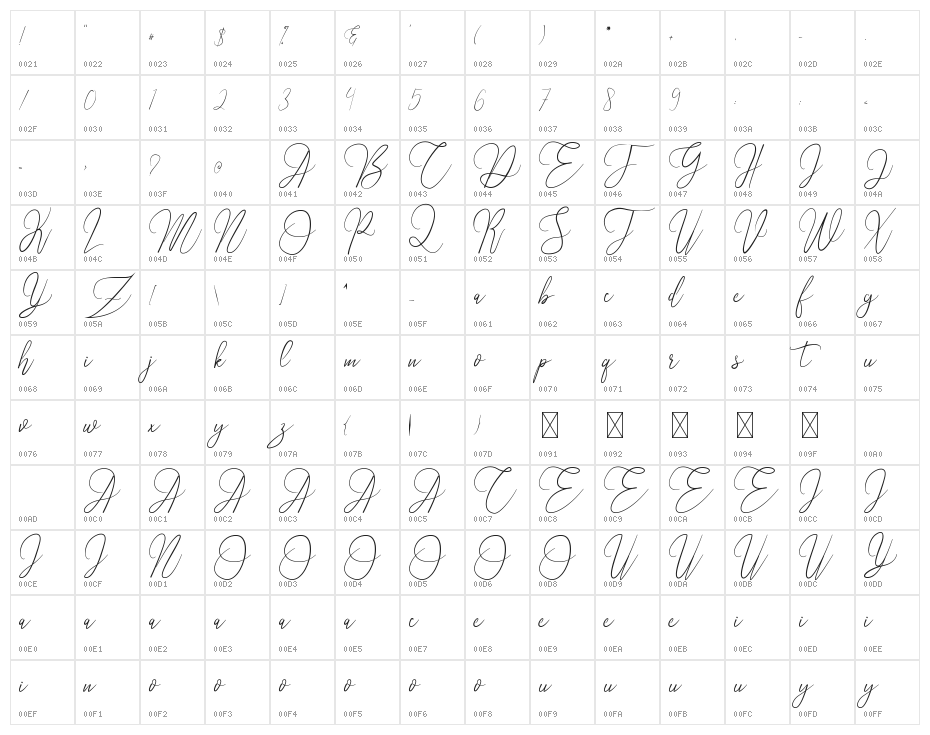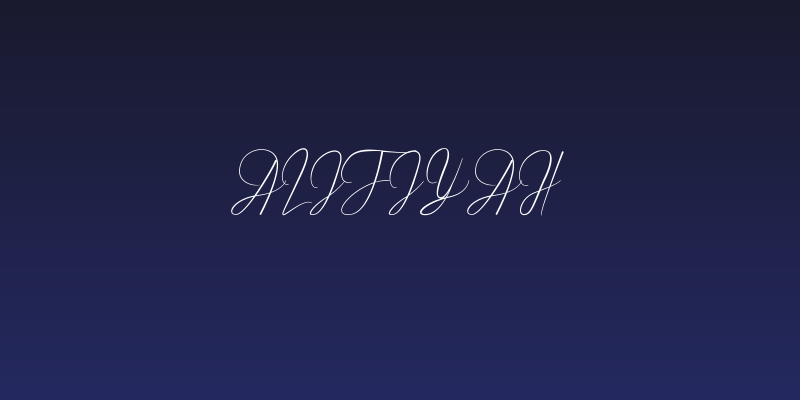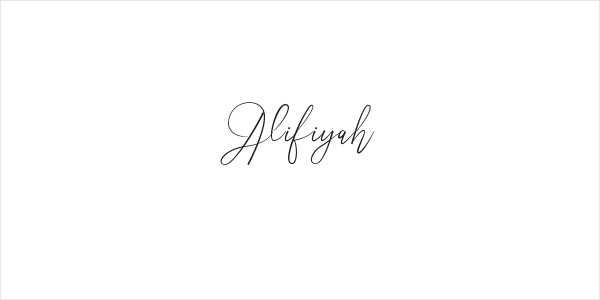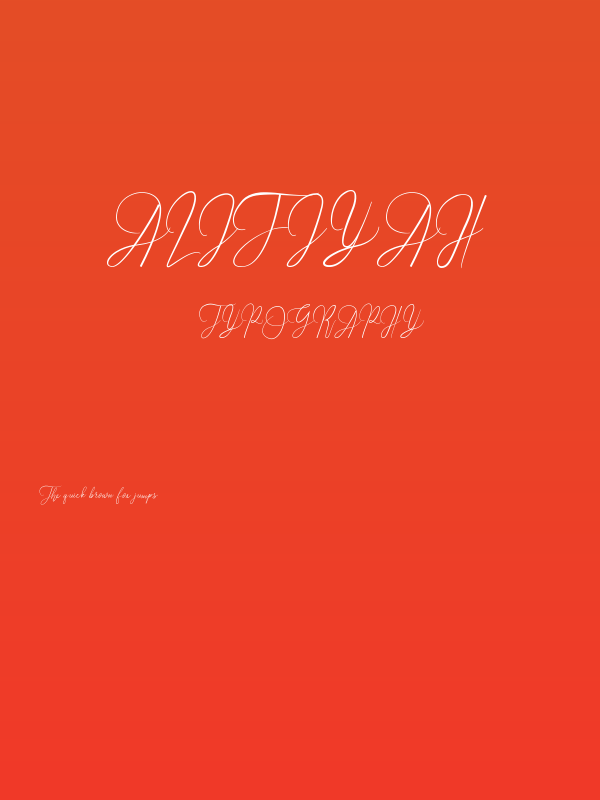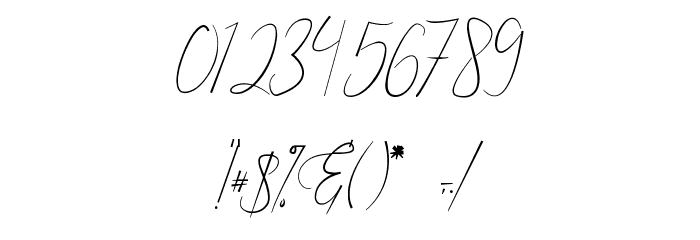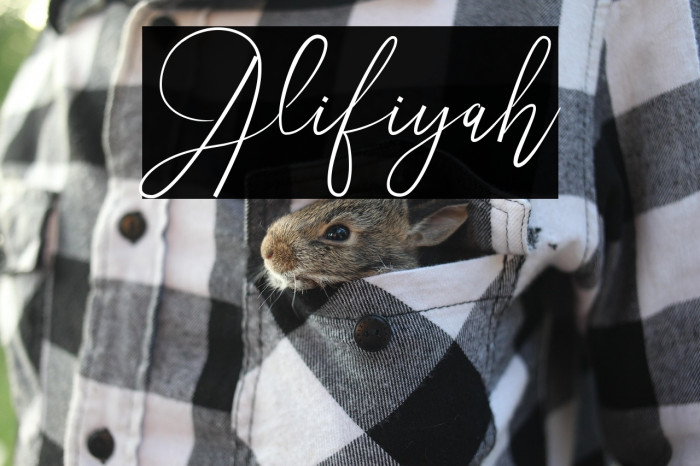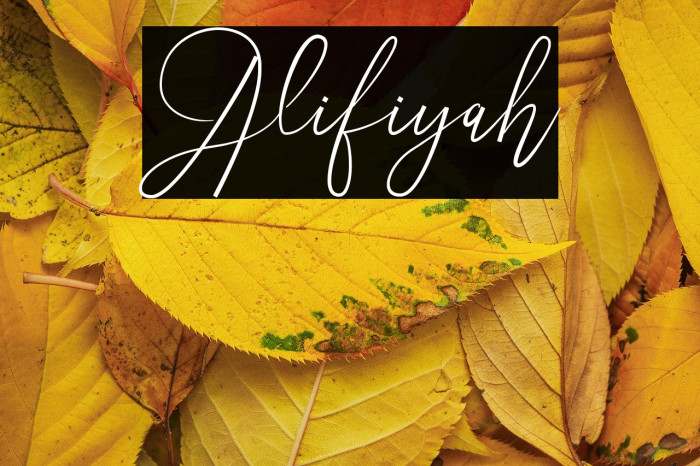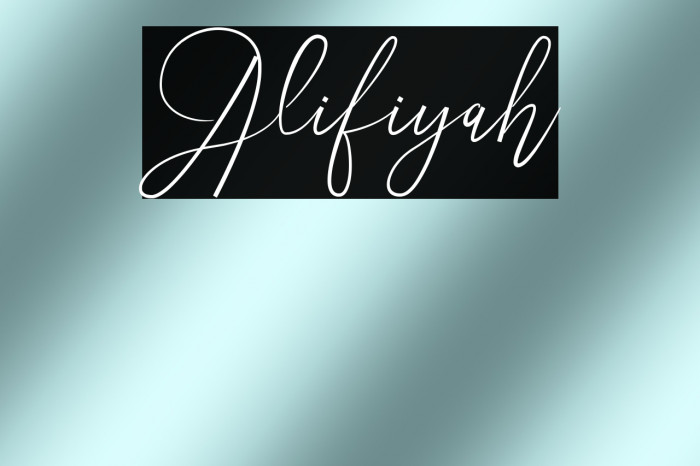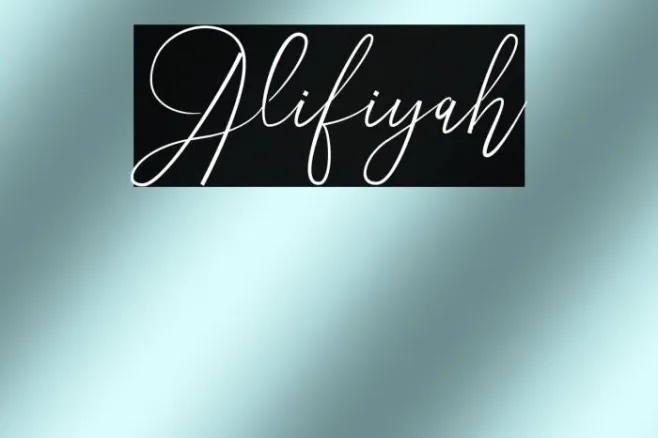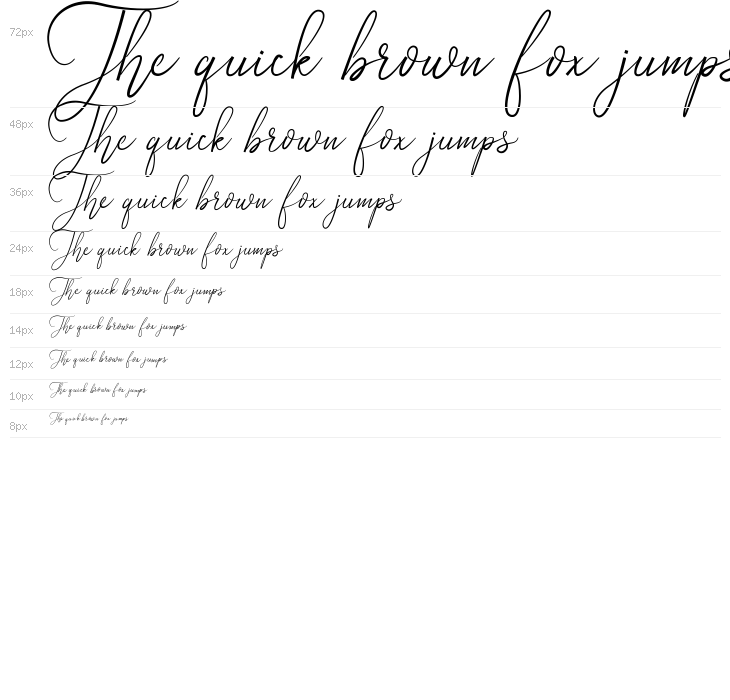
Alifiyah Font
Alifiyah Description
This elegant script font features flowing, interconnected characters with a graceful and sophisticated appearance. The uppercase letters are tall and slender, with delicate loops and swashes that add a touch of refinement. The lowercase letters maintain a consistent style, with smooth curves and a slight slant that enhances readability. The numerals are designed to match the overall aesthetic, with a balanced and harmonious look. Special characters are thoughtfully integrated, maintaining the font's cohesive style. This font exudes a sense of elegance and is perfect for projects that require a touch of class and sophistication.
| Proposed Projects | Ideal for wedding invitations, elegant branding, high-end product packaging, and sophisticated event posters. |